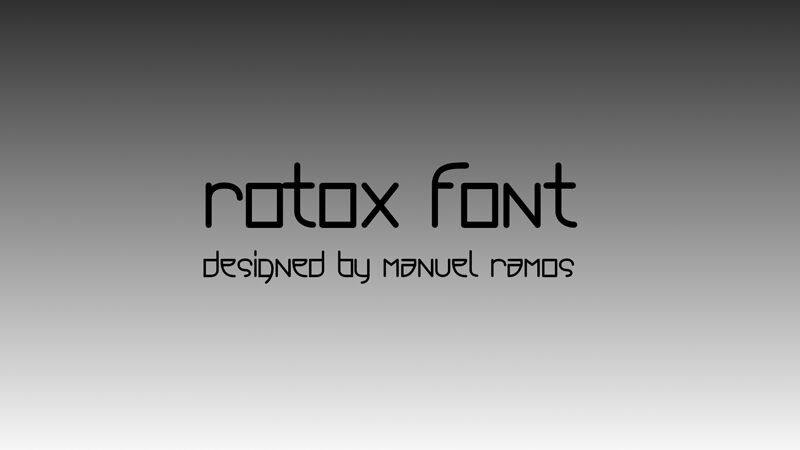
Looking for a new, futuristic display font that's perfect for a variety of projects? Look no further than Rotox, the latest creation from designer Manuel Ramos. With its semi-light weight and sleek, modern design, Rotox is ideal for everything from tech-focused websites to cutting-edge advertising campaigns. Whether you're looking to add some visual interest to your next presentation or want an attention-grabbing font for your latest product launch, Rotox is the perfect choice. So why wait? Start exploring all the possibilities of this stunning display font today and take your next project to new heights!